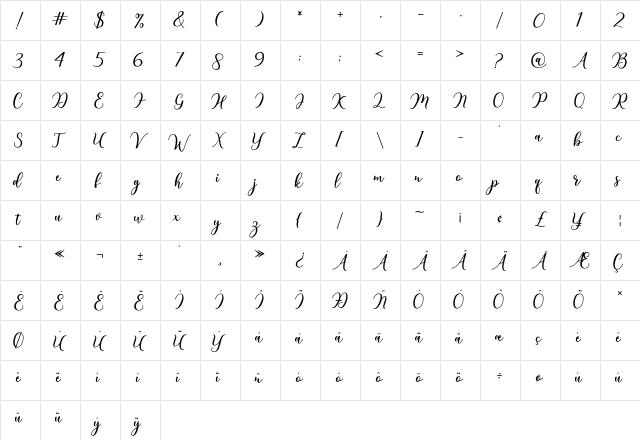
niesha Regular
Design Context for niesha Typeface
niesha is a composed and adaptable typeface that performs quietly and consistently across a wide range of design contexts.